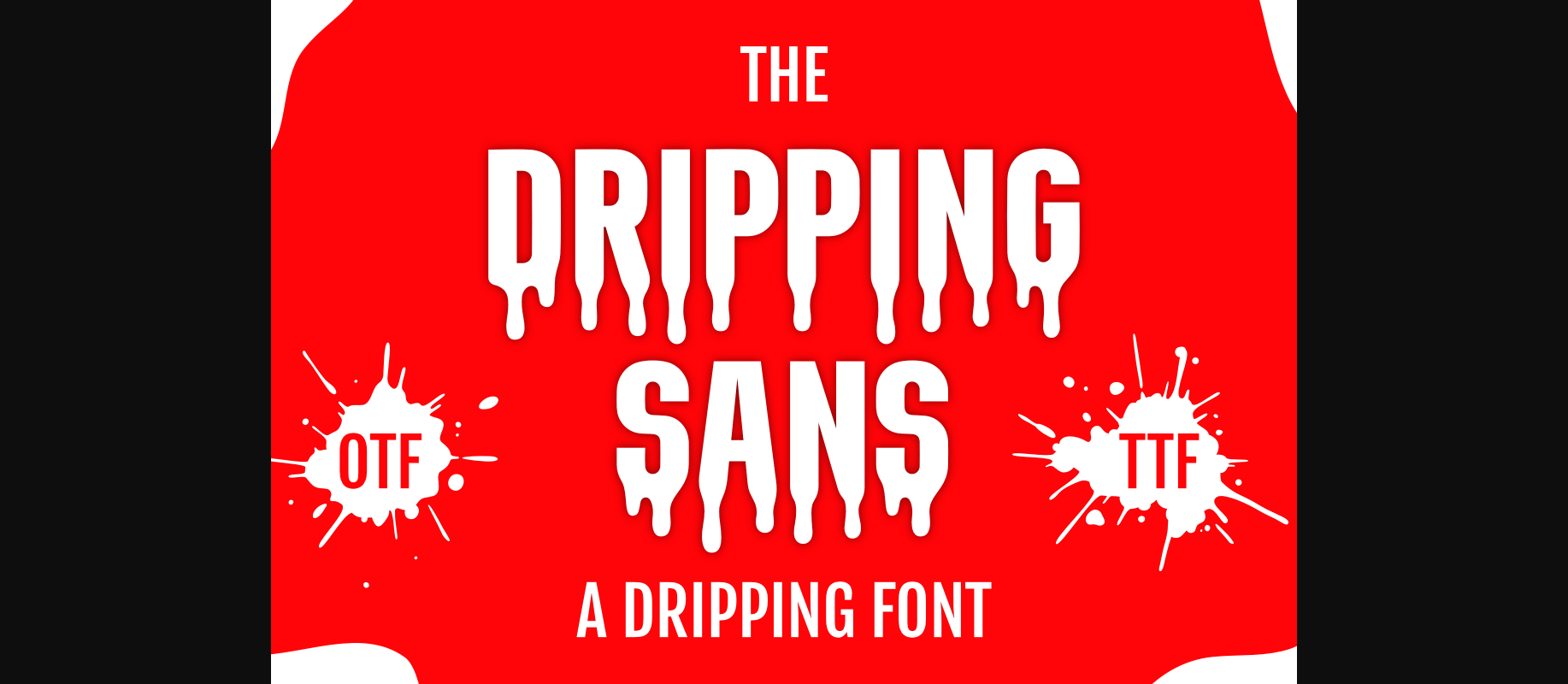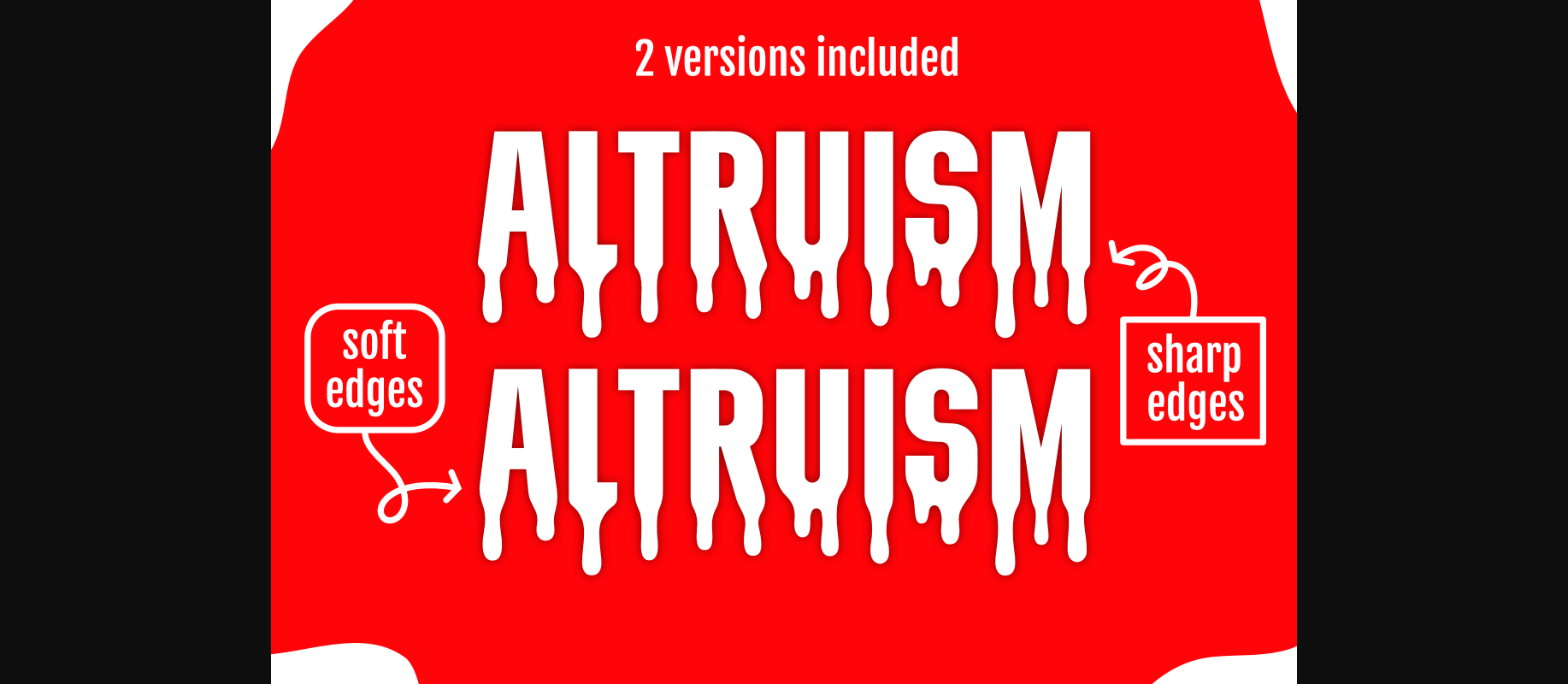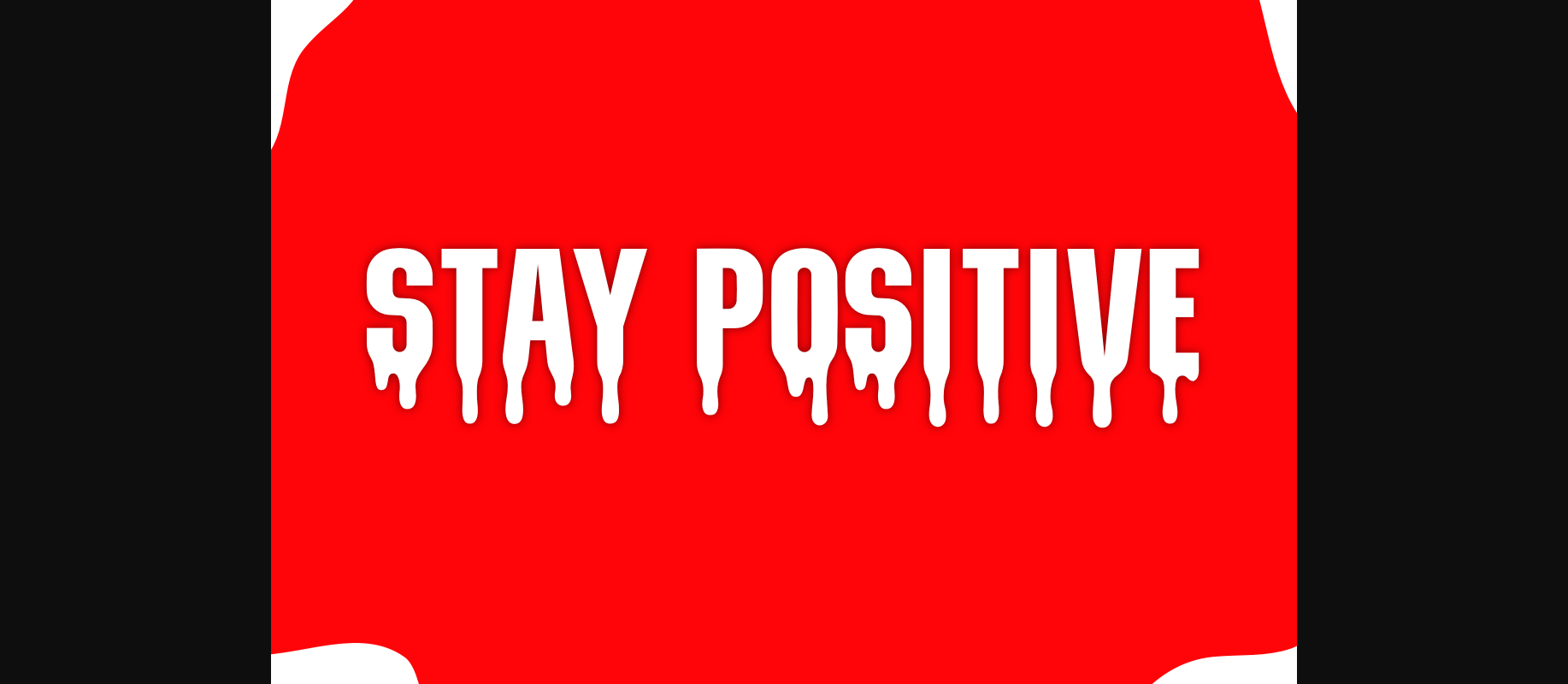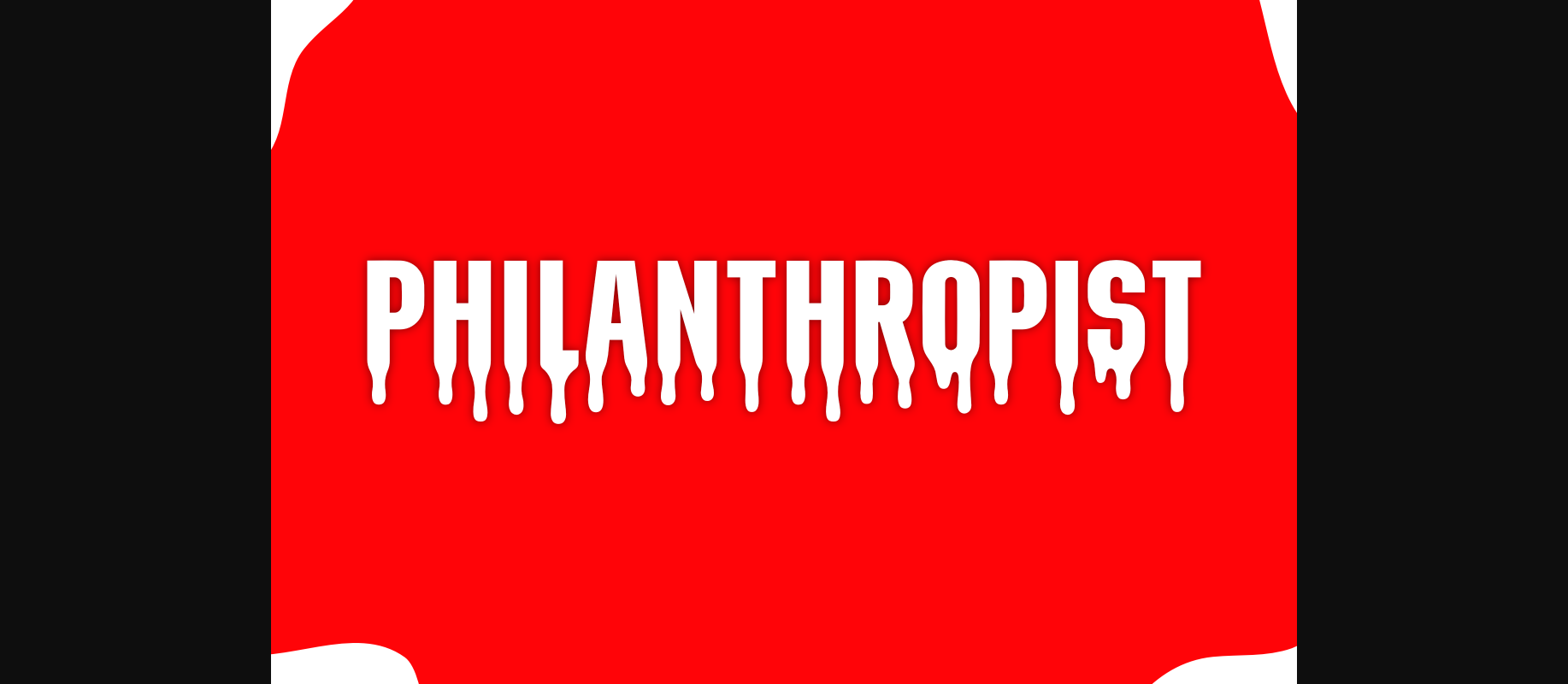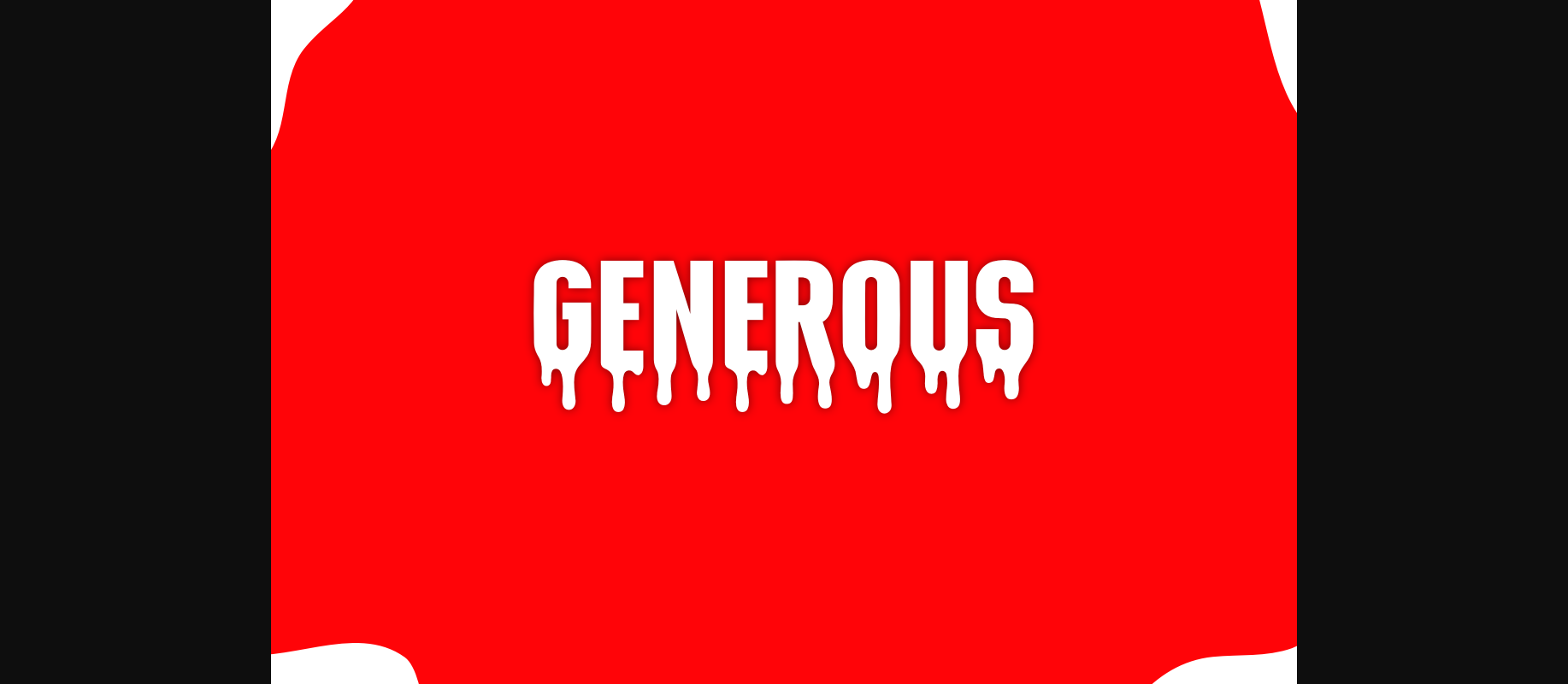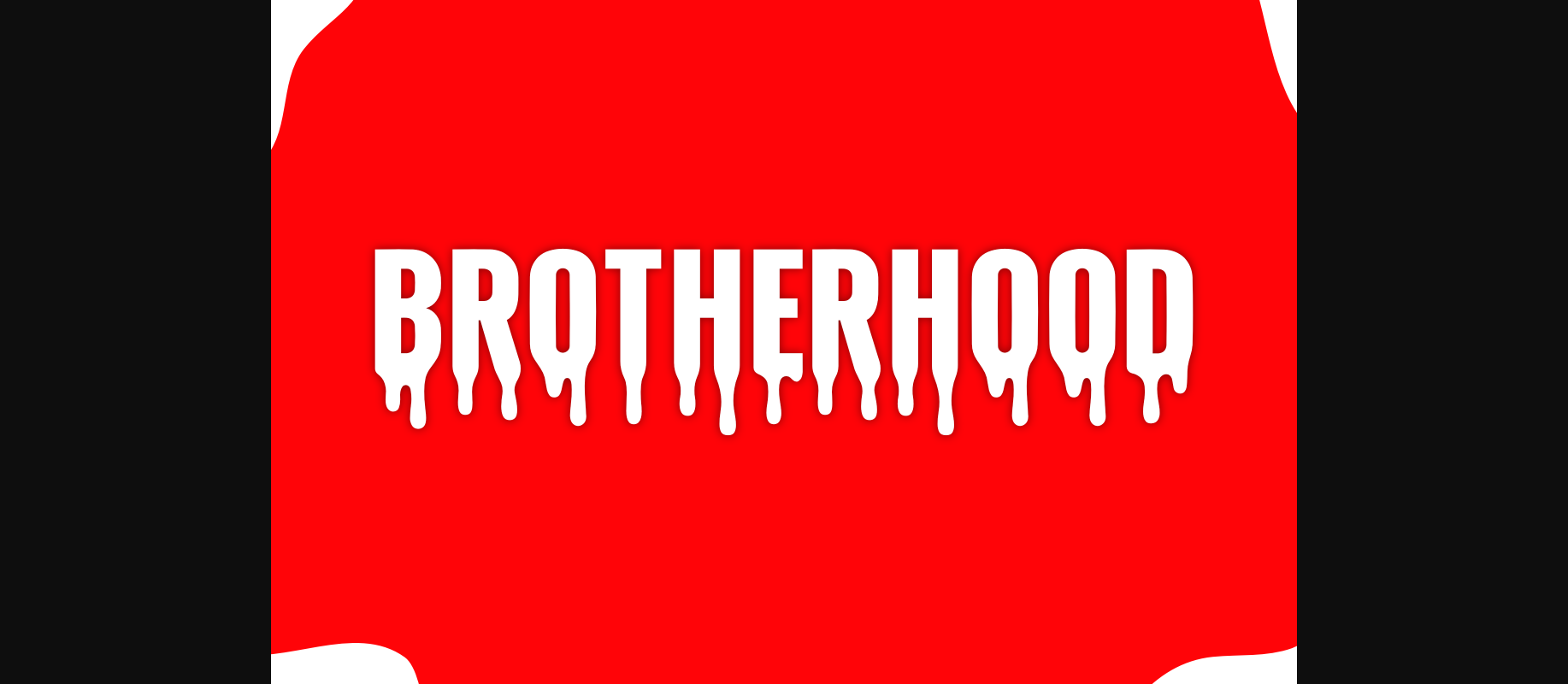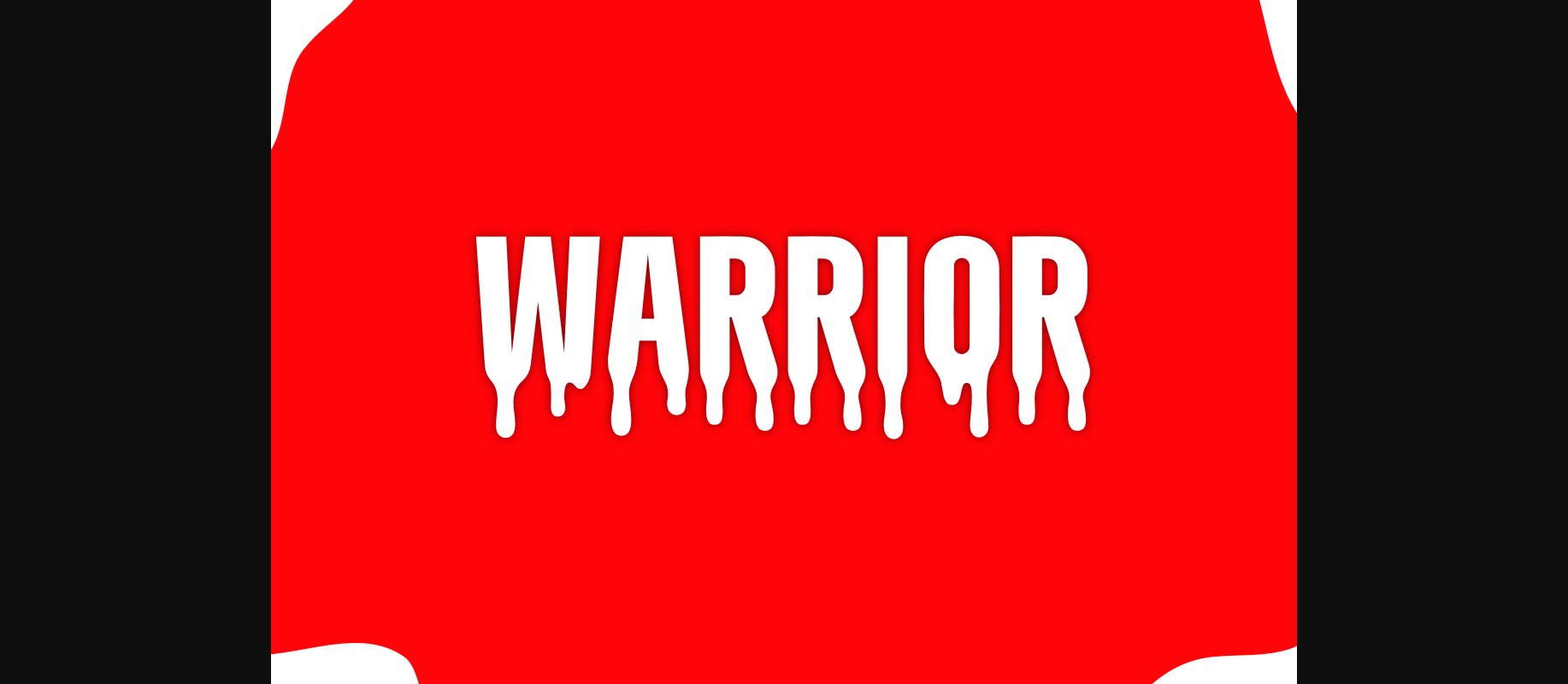
Dripping Sans Font
About Dripping Sans Font
Introducing Dripping Sans, a bold and innovative sans-serif font that brings a dynamic and expressive touch to your designs. This typeface effortlessly merges contemporary simplicity with a playful and dripping aesthetic. Each character appears as if it’s in a state of fluid transformation, adding a unique and eye-catching element to your projects. Dripping Sans is perfect for those seeking a modern and unconventional style that embraces creativity and stands out from the ordinary. Whether used in headlines, logos, or artistic designs, this dripping sans-serif font injects a sense of movement and energy, leaving a lasting impression on every viewer.